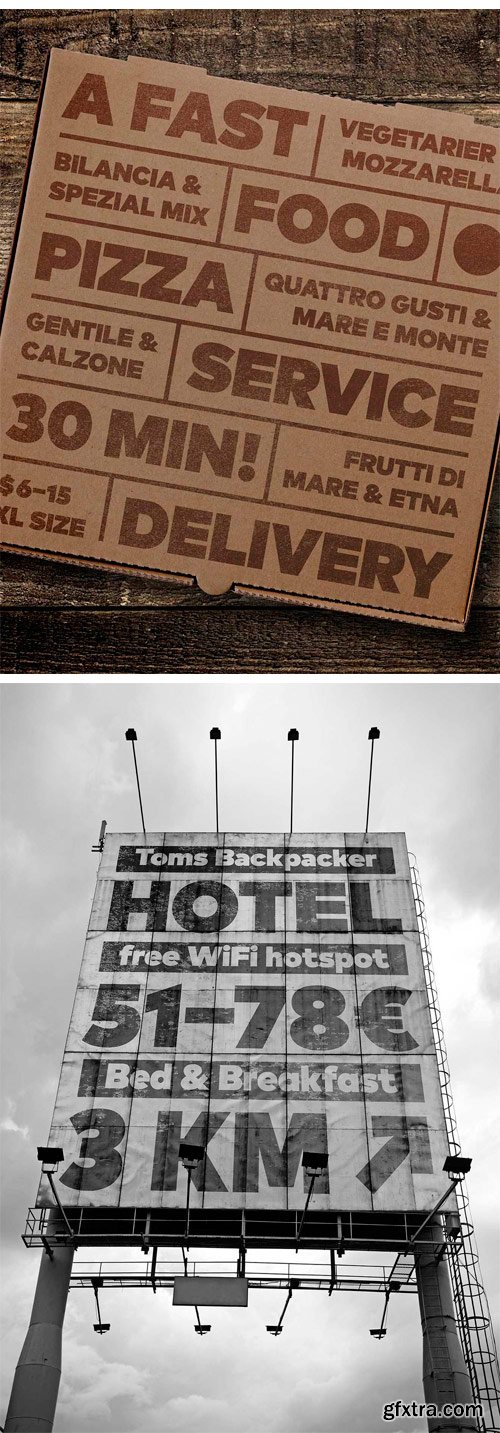
- German type designers Hannes von Döhren, Christoph Koeberlin and the FontFont Type Department created this sans FontFont in 2013. The family contains 10 weights from Hairline to Black and is ideally suited for film and TV, advertising and packaging, editorial and publishing, logo, branding, music and nightlife, software and gaming, sports as well as web and screen design. FF Mark provides advanced typographical support with features such as ligatures, alternate characters, case-sensitive forms, fractions, super- and subscript characters, and stylistic alternates. It comes with a complete range of figure set options – oldstyle and lining figures, each in tabular and proportional widths.